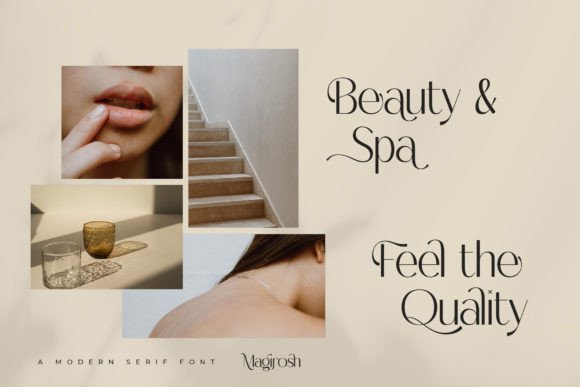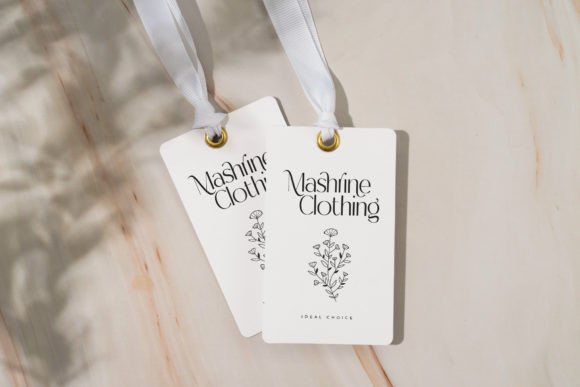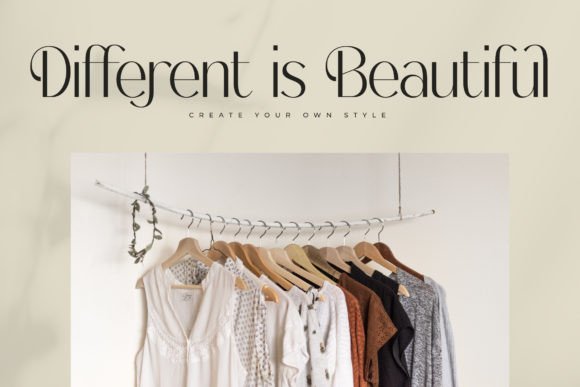
Introduction to Magirosh Font Font
Fonts play a crucial role in design, and the Magirosh Font font is a typeface that brings both character and versatility to any project. Whether you’re working on a branding project, a website, or a print design, the Magirosh Font font offers a unique style that can elevate your work.
Magirosh is a modern and stylish serif font that has its own unique appearance.
This typeface is perfect for an elegant and luxurious logo, fashion brands, magazines, apparel, lettering, quotes, and so much more .
Key Features of Magirosh Font Font
Why Choose Magirosh Font Font?
The Magirosh Font font is more than just a typeface – it’s a design tool that helps you communicate your message with style and clarity. Its unique character set and versatile design make it suitable for a wide range of applications, from elegant invitations to bold headlines.
With its carefully crafted letterforms and balanced proportions, the Magirosh Font font ensures readability and visual appeal across all mediums.
What makes Magirosh Font font special?
The Magirosh Font font stands out with its unique design, exceptional readability, and versatility across various design applications.